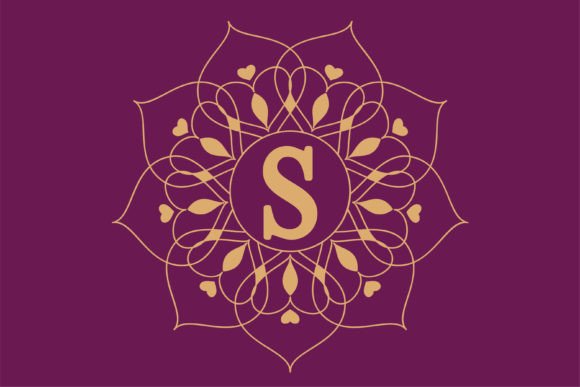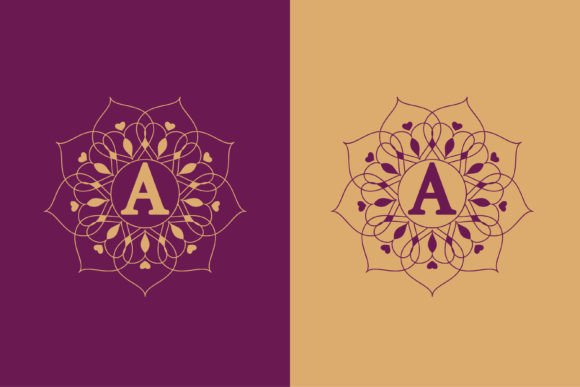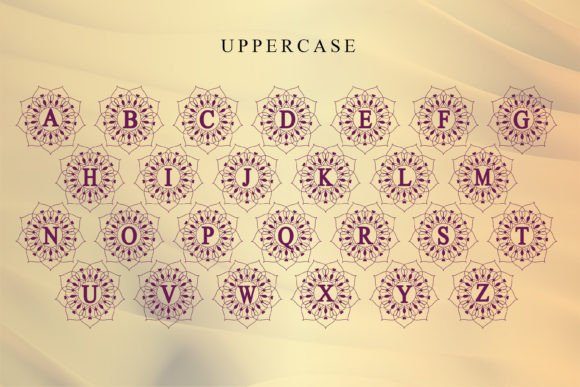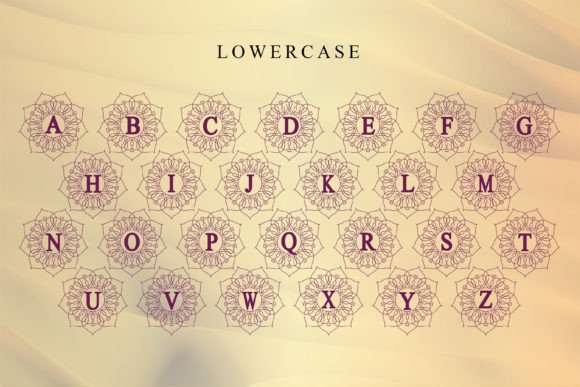
Introduction to Mandala Monogram Font
Mandala Monogram is a unique and intricate monogram decorative font.
Add this elegant font to each of your love letters, wedding invitations, or favorite design ideas, and you will be astounded by the outcome Unique and distinct, this font will match a wide range of design ideas, both formal and personal.
Mandala Monogram Font offers exceptional quality and versatility, making it a valuable addition to your design toolkit. Whether you’re creating for personal projects or commercial use, Mandala Monogram Font delivers professional results.